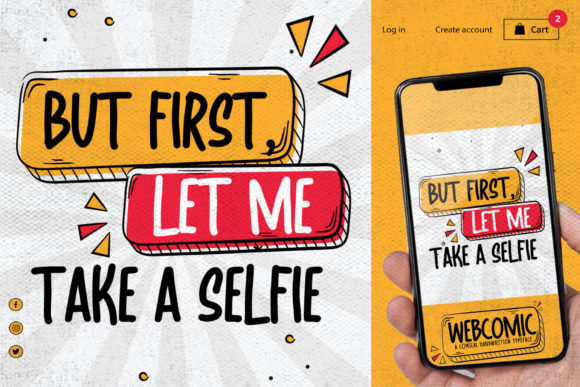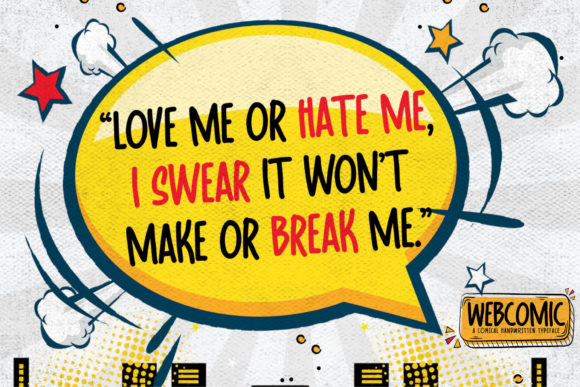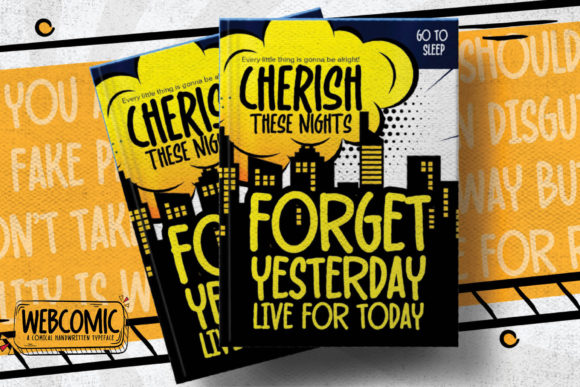
About Webcomic Font
Webcomic is a simple, quirky and adaptable handwritten font. Its informal style and casual vibe will make this font a go-to choice for each of the creations that require a relaxed touch.